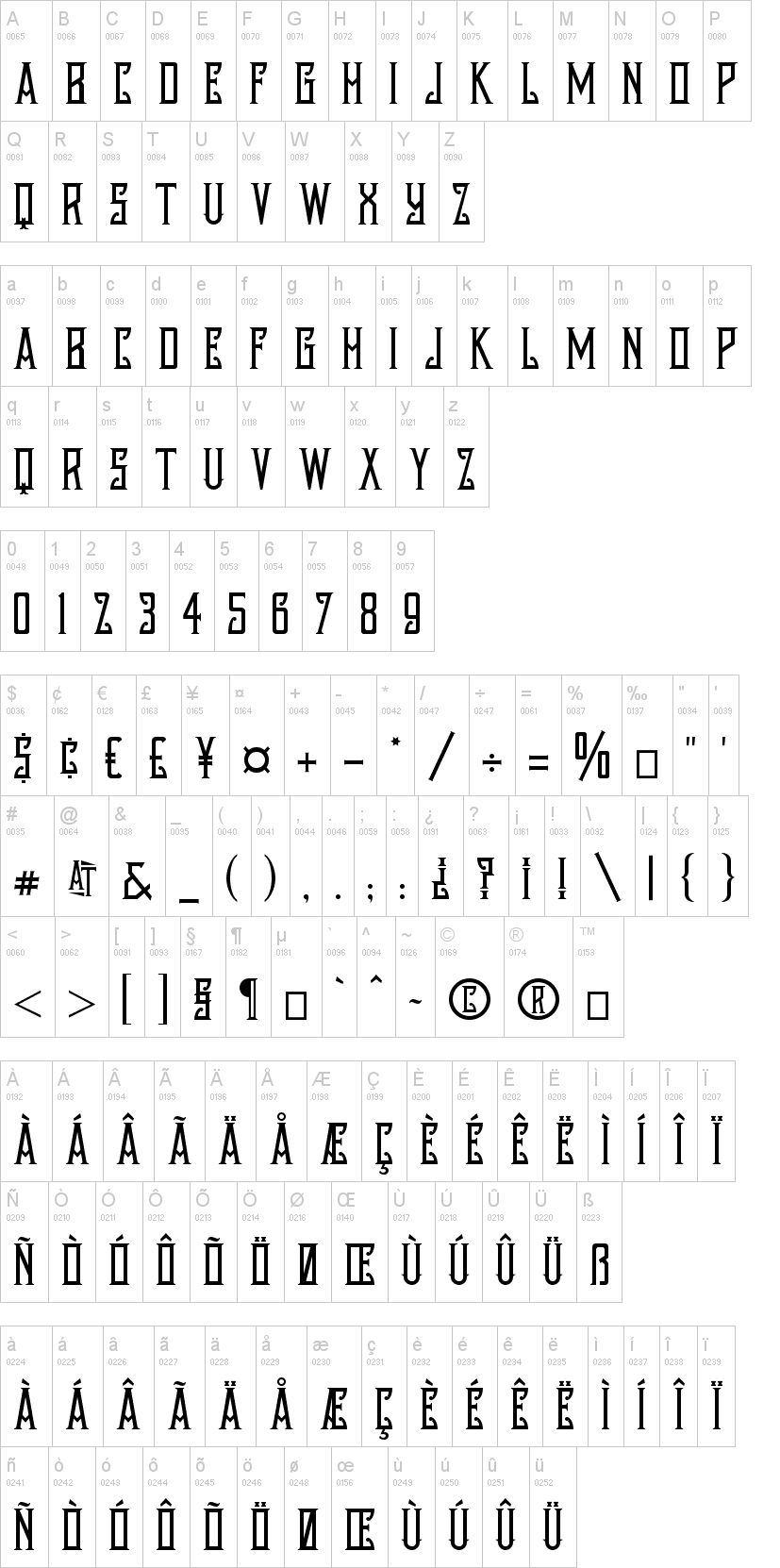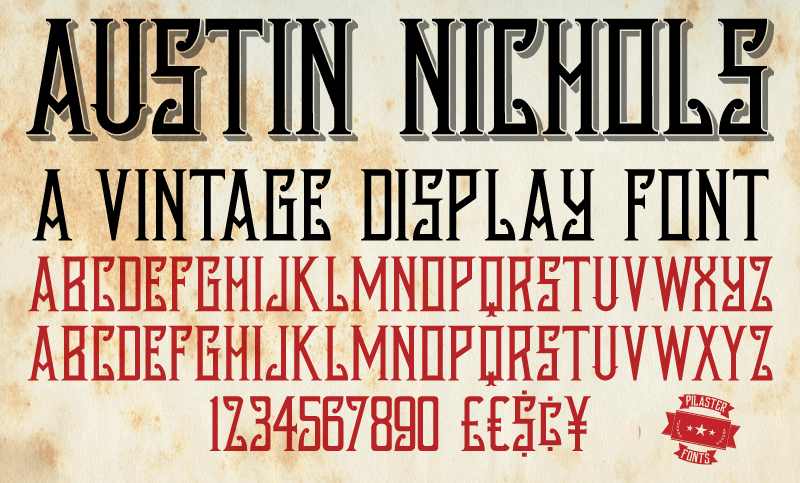
Note of the authorAustin Nichols is inspired by the hand lettering from an Austin, Nichols & Company Advertising Cover. Ideal for any vintage/retro/gothic projects.